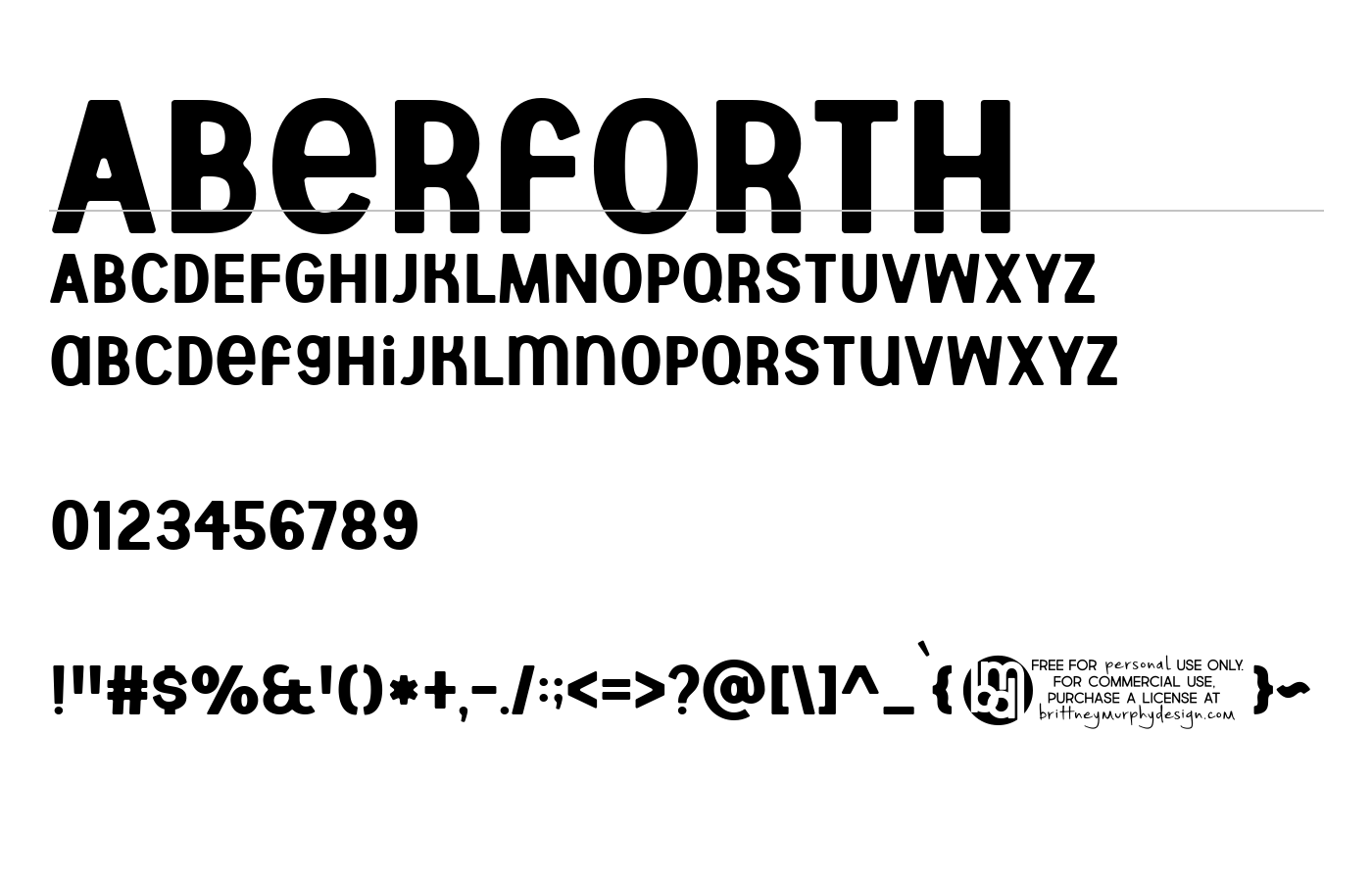
Aberforth is a bold, condensed sans serif font with a playful, rounded feel that combines strong geometric shapes with soft curves. Its distinct letterforms, such as the single-story lowercase ‘a’ and quirky ampersand, give it a friendly and approachable character, making it ideal for fun, creative branding, headlines, and posters where personality and readability are key. This font works well for designers seeking a modern yet whimsical style that stands out without losing clarity.
Aberforth Font
About Aberforth Font
| Font family | Aberforth Font |
| Designer | Brittney Murphy Design |